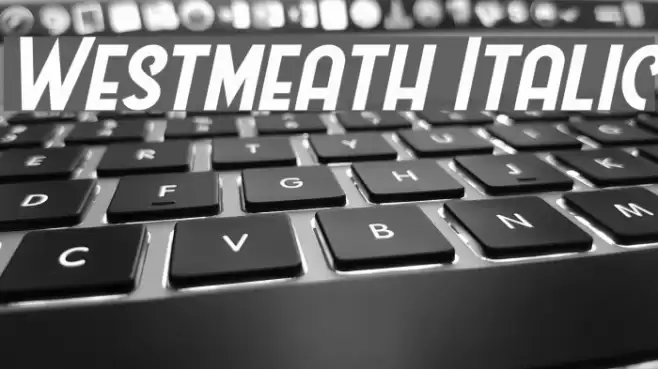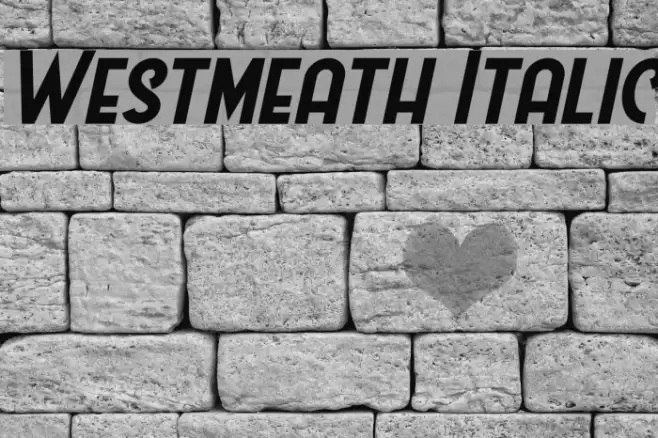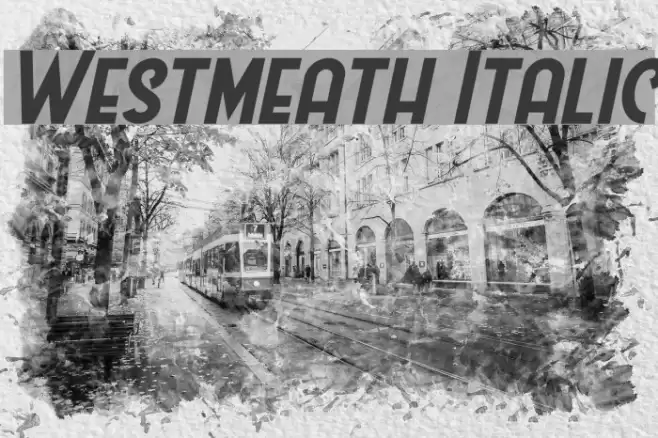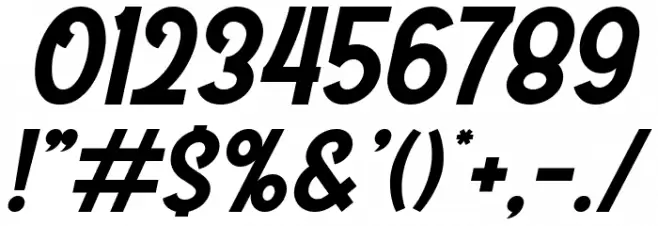
Westmeath Italic Font
Westmeath Italic Description
This font features a bold and dynamic style with a distinct italic slant, giving it a sense of movement and energy. The characters are well-defined with a consistent stroke width, providing a strong visual impact. The uppercase and lowercase letters maintain a cohesive look, while the numerals and special characters complement the overall design. The font's boldness and italic nature make it suitable for attention-grabbing headlines and titles.
A bold, italic font with a dynamic and energetic style from Retro fonts.
- Proposed Projects: Ideal for branding, advertising, posters, and any project requiring a bold and impactful typeface.